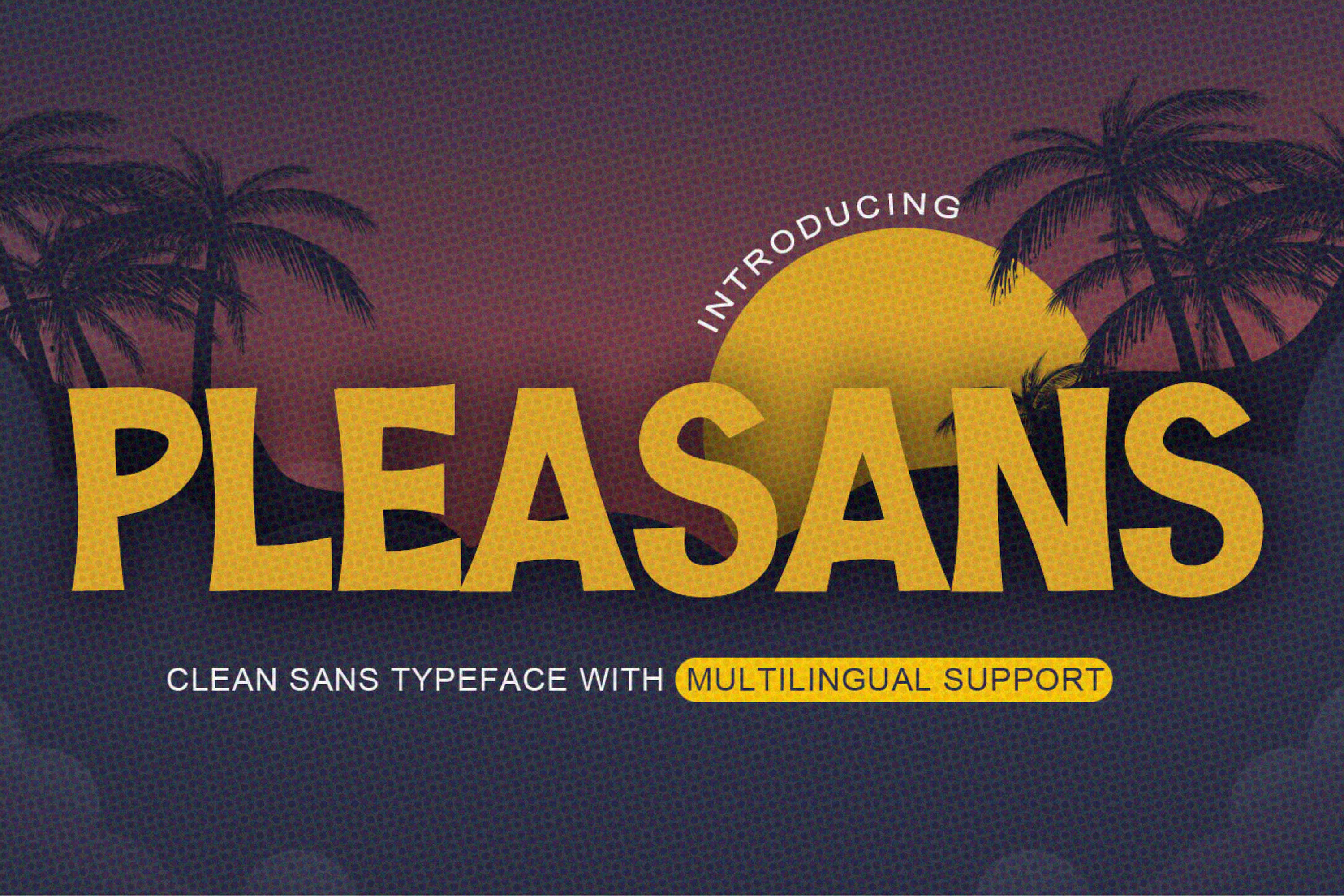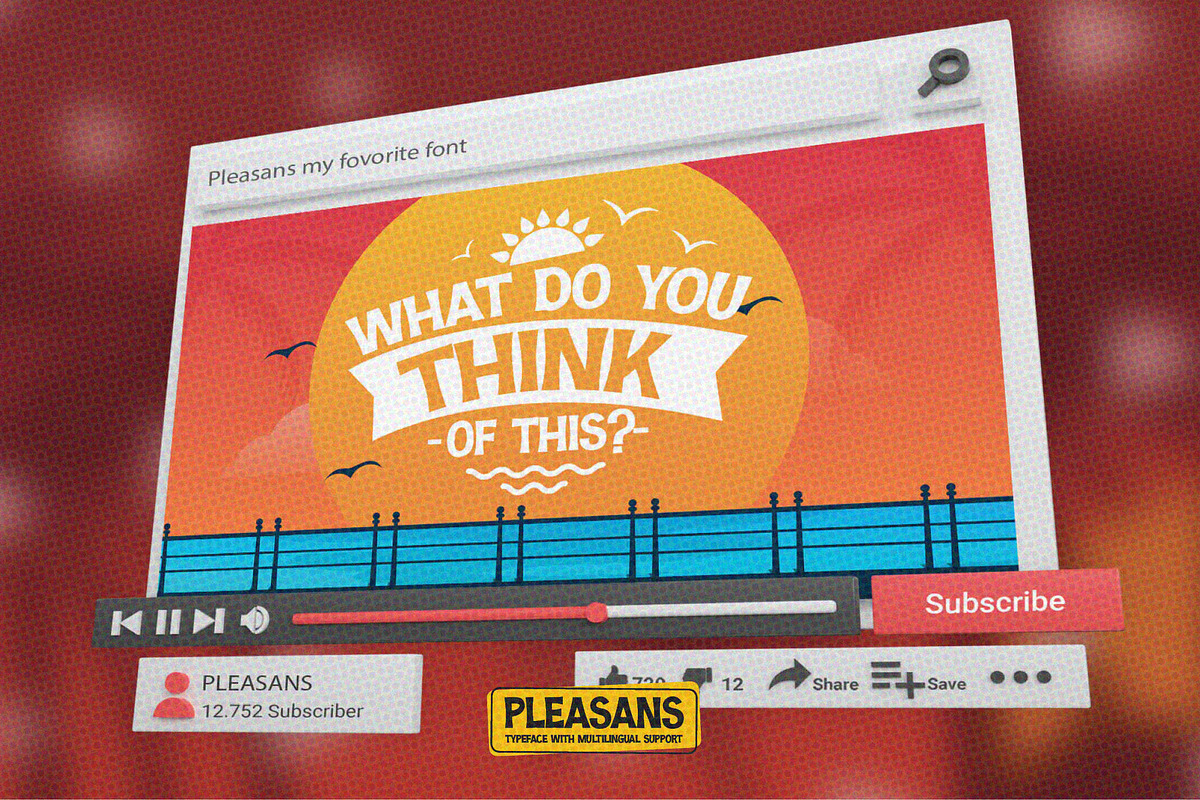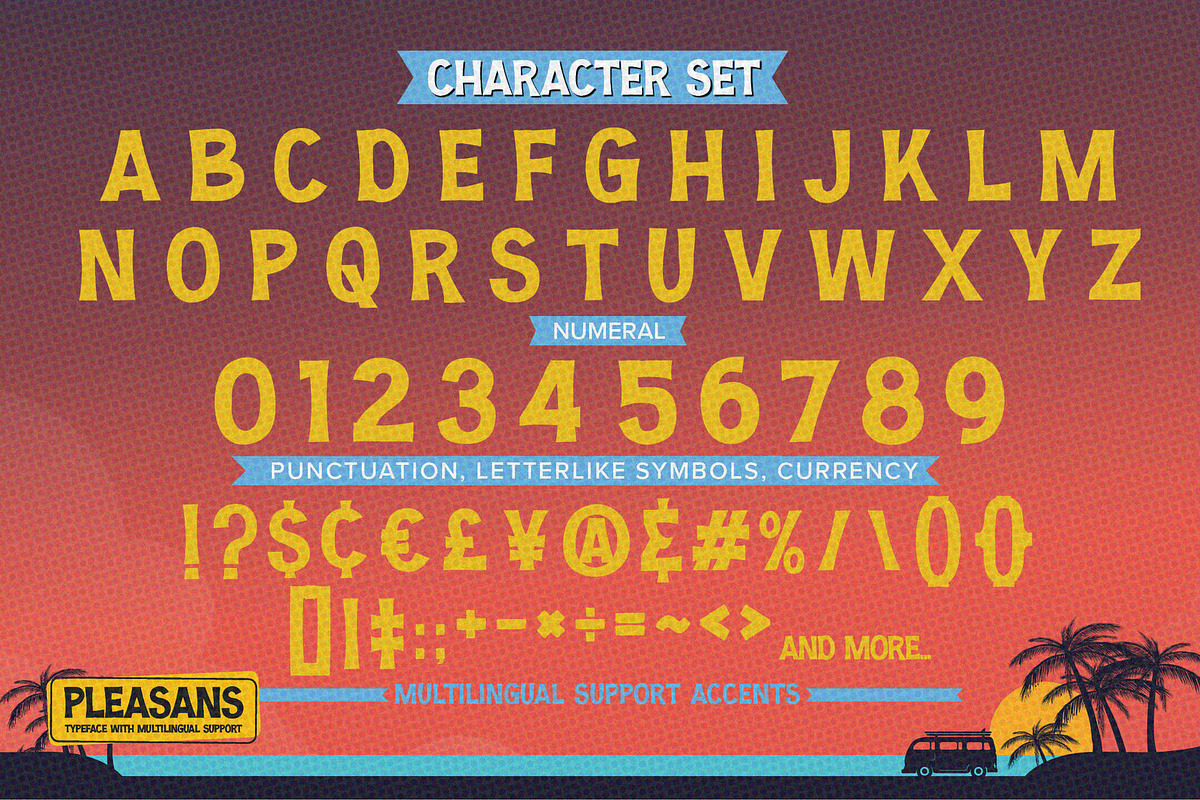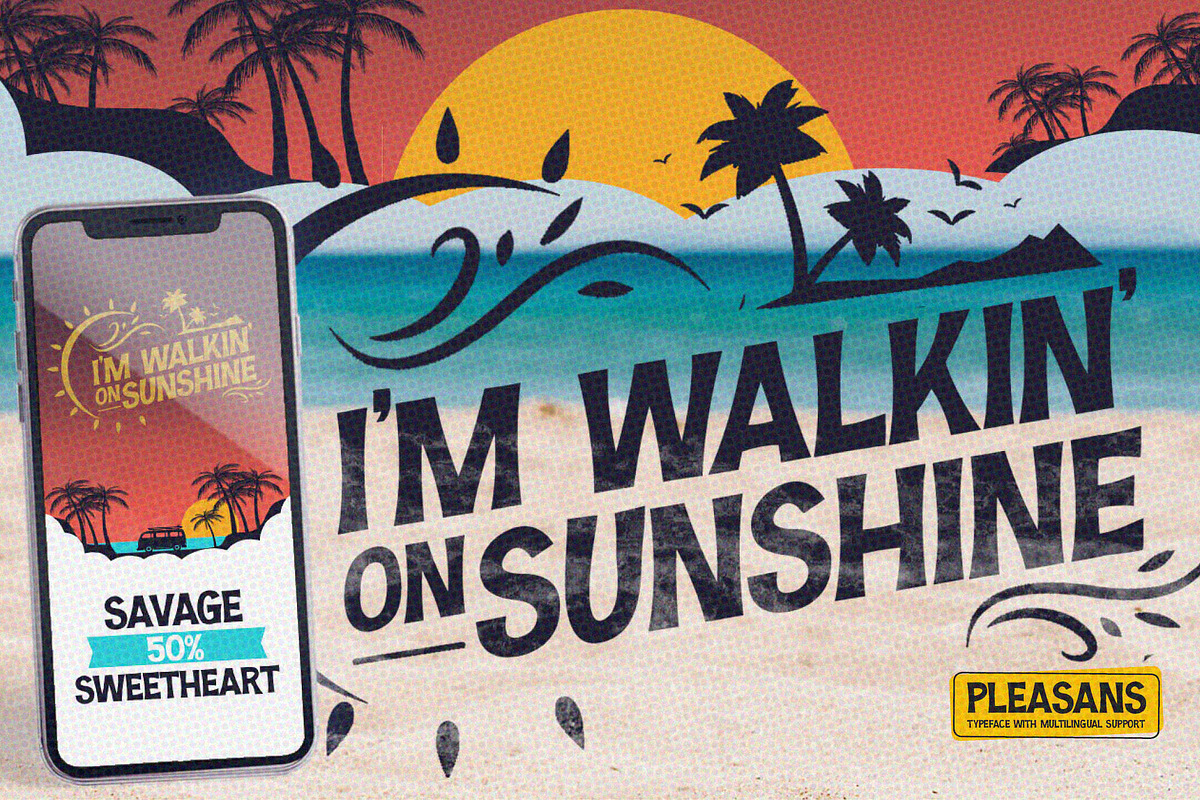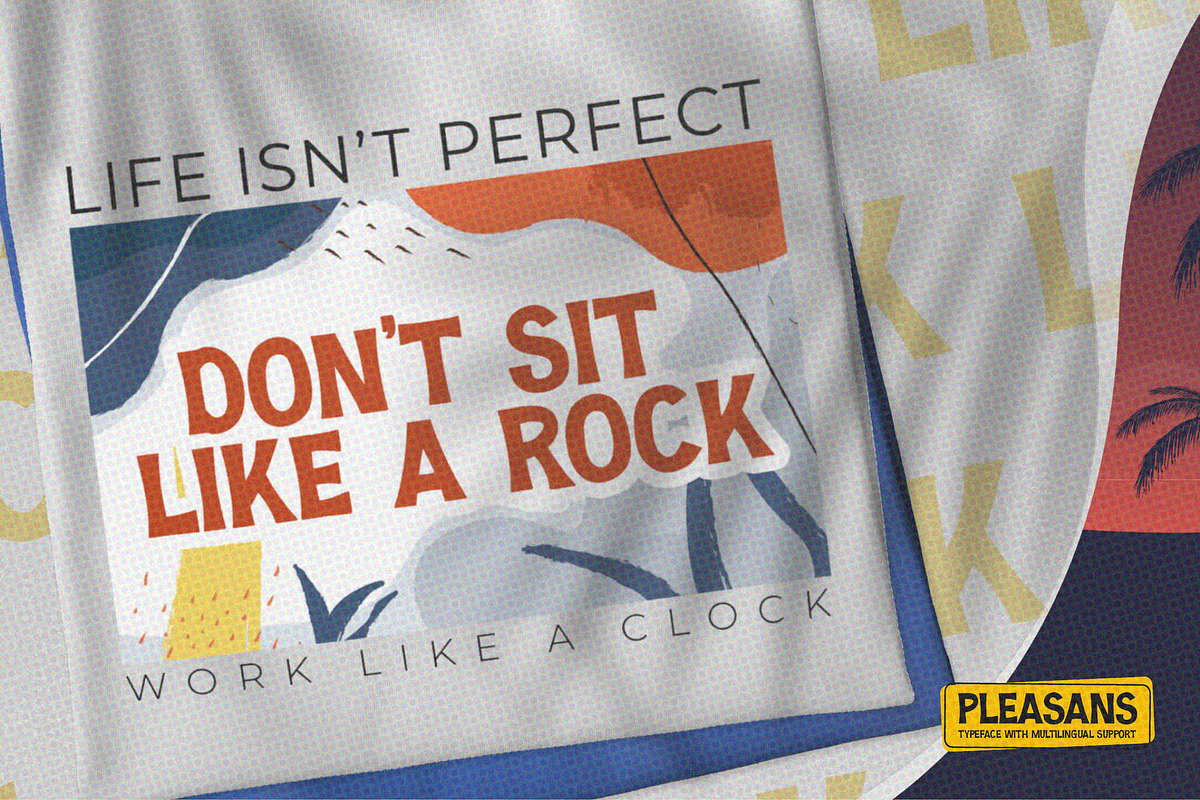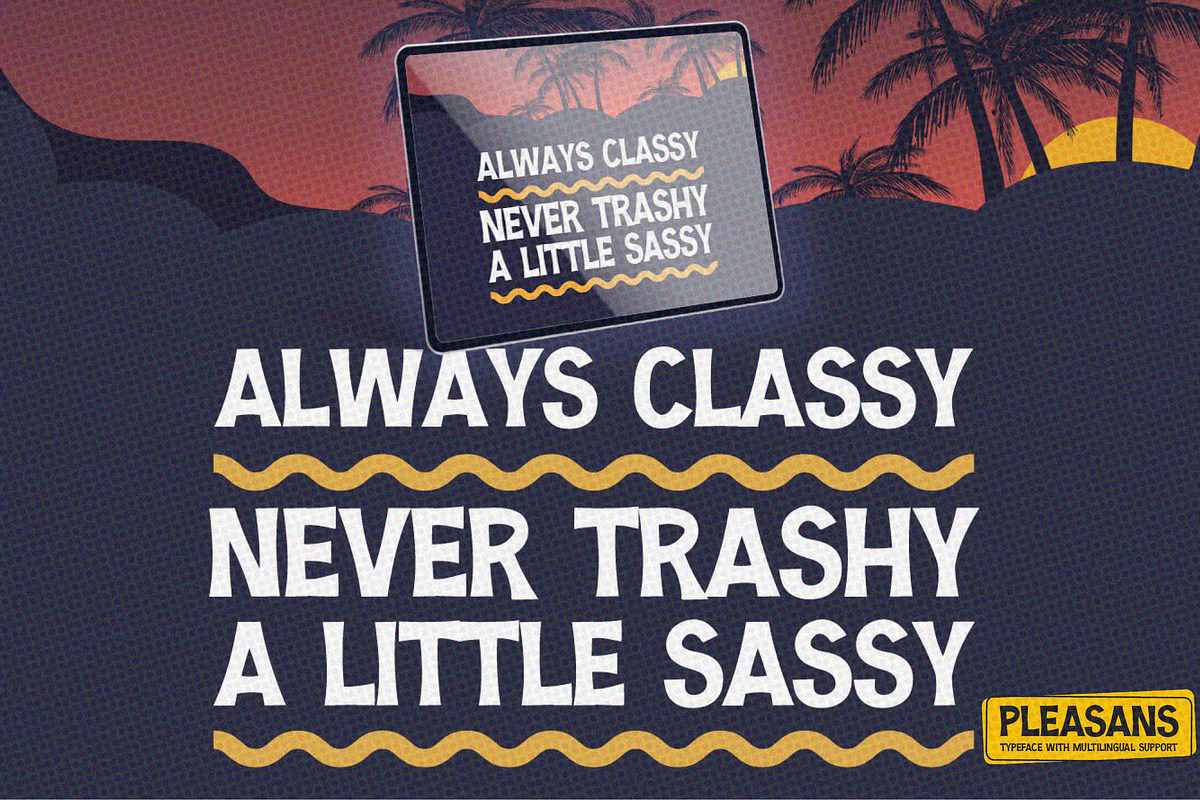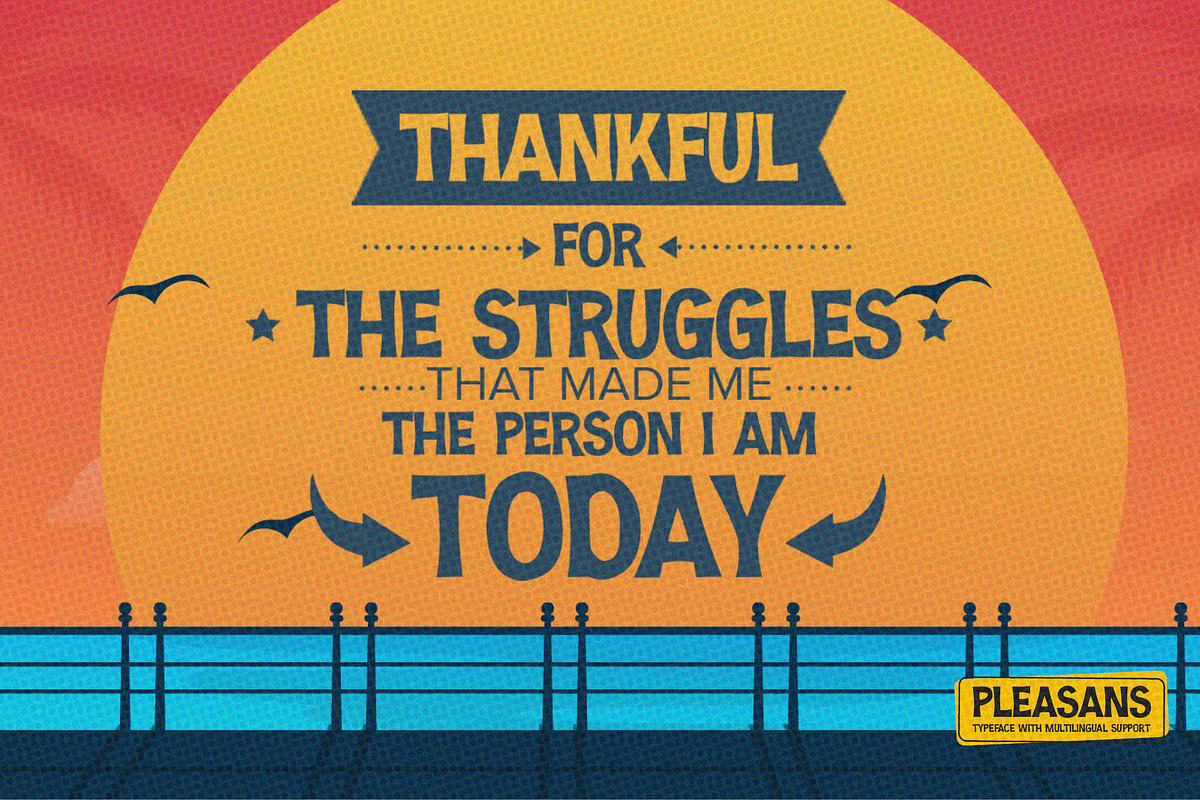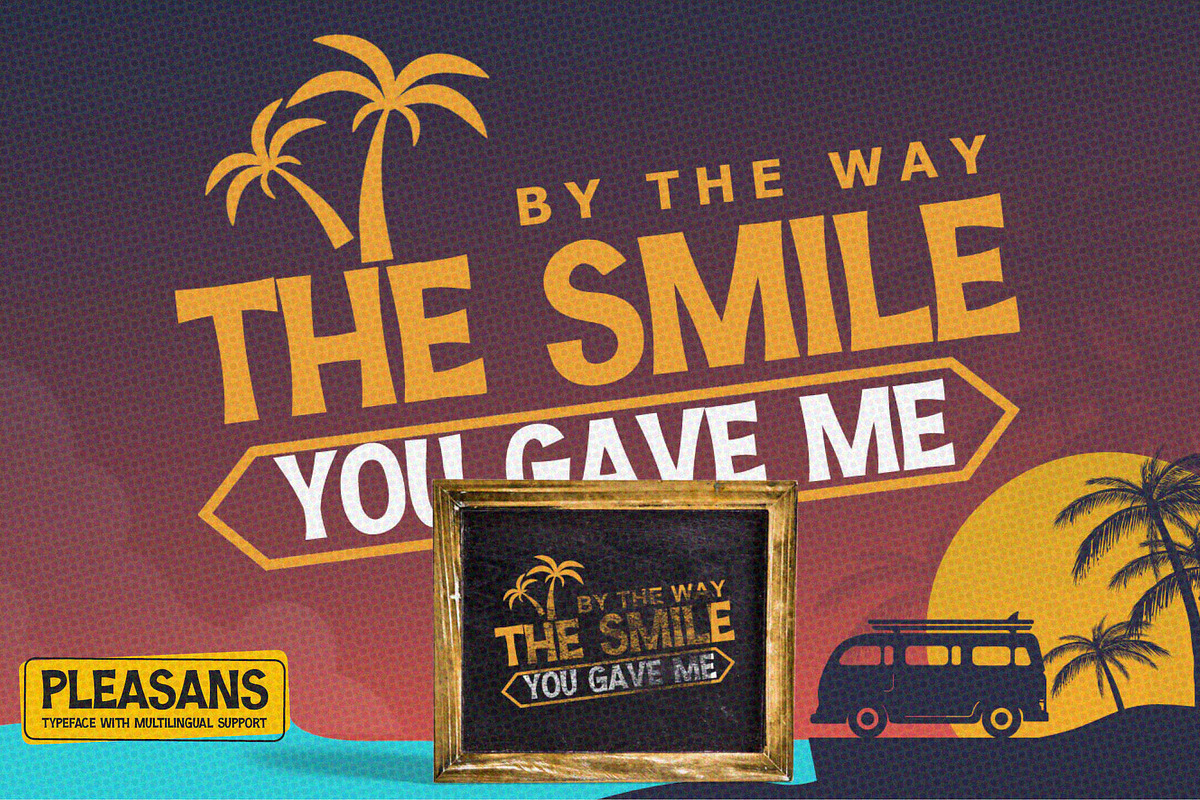
Pleasans - Clean Sans Typeface
Hello Everyone, Introduce our new collection, Pleasans - Sans Serif Typeface ,Extended Display Sans Serif inspired by famous logos of Technology and brands that have very strong characteristics, very suitable for posters, packaging, branding, logotype and more.
Pleasans font with strong and challenging nuances. very suitable for the title, typography, Poster, magazines, brochures, packaging,Websites and much more for your design needs, making your designs more modern and professional.